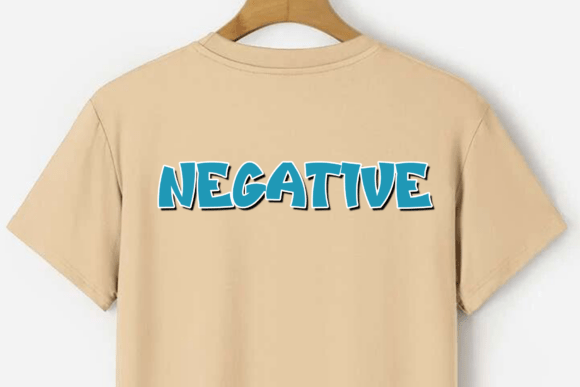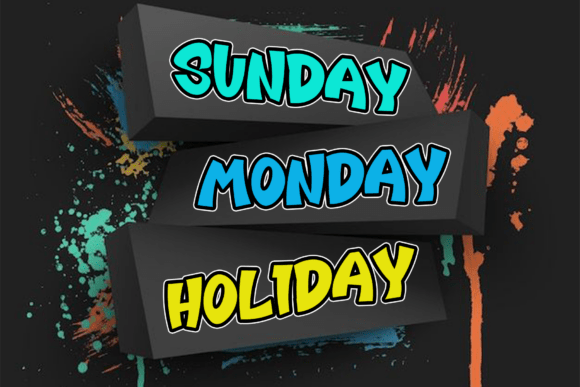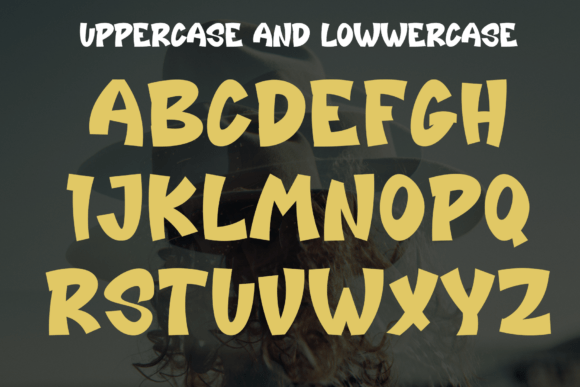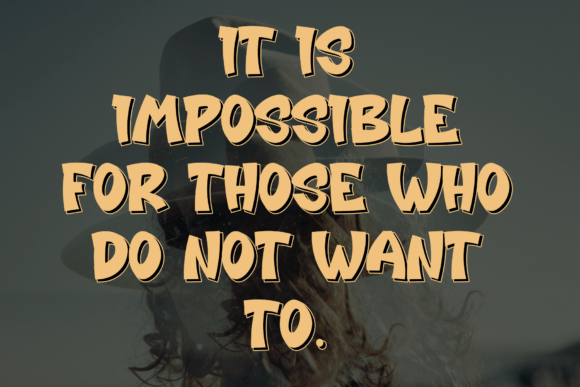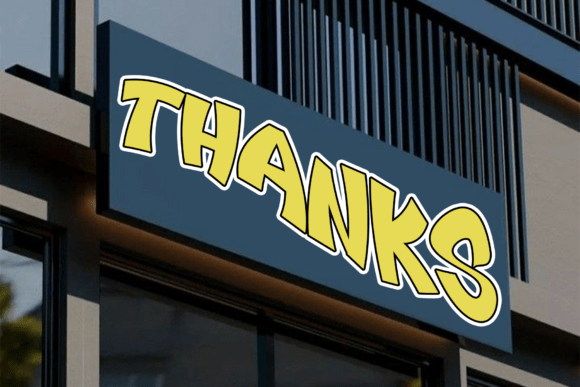
Cowgirl Font: Unleash Your Creativity with a Bold and Expressive Graffiti-Style Font
Are you a designer or crafter looking for a font that can add a touch of rebellious energy and playfulness to your designs? Look no further than the Cowgirl Font. This bold and expressive graffiti-style font is perfect for creating eye-catching poster designs, merchandise, social media graphics, and edgy branding that demands attention.
What is Cowgirl Font?
Cowgirl is a unique and stylish font that combines the edginess of street art with a playful Western twist. Its chunky letterforms and stylish shadow give it a dynamic, standout look that’s perfect for designers who want to add a touch of attitude to their designs. Whether you’re designing for urban wear or creating eye-catching event flyers, Cowgirl brings a fresh dose of character and personality to your work.
Key Features of Cowgirl Font
- Bold and Expressive: Cowgirl Font is a bold and expressive font that’s perfect for creating eye-catching designs that demand attention.
- Graffiti-Style: With its chunky letterforms and stylish shadow, Cowgirl Font has a dynamic, graffiti-style look that’s perfect for street art-inspired designs.
- Playful Western Twist: Cowgirl Font combines the edginess of street art with a playful Western twist, making it perfect for designers who want to add a touch of personality to their designs.
- Versatile: Cowgirl Font is perfect for a wide range of design applications, including poster designs, merchandise, social media graphics, and edgy branding.
Uses of Cowgirl Font
Cowgirl Font is a versatile font that can be used for a wide range of design applications. Here are some ideas to get you started:
- Poster Designs: Use Cowgirl Font to create eye-catching poster designs that demand attention. Perfect for promoting events, concerts, or festivals.
- Merchandise: Add a touch of attitude to your merchandise designs with Cowgirl Font. Perfect for designing t-shirts, hoodies, or hats.
- Social Media Graphics: Use Cowgirl Font to create eye-catching social media graphics that stand out from the crowd. Perfect for promoting your brand or business.
- Edgy Branding: Add a touch of rebellious energy to your branding with Cowgirl Font. Perfect for businesses that want to stand out from the crowd.
Tips for Using Cowgirl Font
Here are some tips for using Cowgirl Font in your designs:
- Use it bold: Cowgirl Font is a bold and expressive font, so don’t be afraid to use it bold. It’s perfect for creating eye-catching designs that demand attention.
- Experiment with colors: Cowgirl Font looks great in a wide range of colors, so don’t be afraid to experiment. Try using bright and bold colors to add a touch of personality to your designs.
- Pair it with other fonts: Cowgirl Font can be paired with other fonts to create a unique and stylish look. Try pairing it with a clean and simple font to create contrast.
In conclusion, Cowgirl Font is a bold and expressive graffiti-style font that’s perfect for designers and crafters who want to add a touch of rebellious energy and playfulness to their designs. With its chunky letterforms and stylish shadow, Cowgirl Font has a dynamic, standout look that’s perfect for a wide range of design applications. Whether you’re designing for urban wear or creating eye-catching event flyers, Cowgirl Font brings a fresh dose of character and attitude to your work.